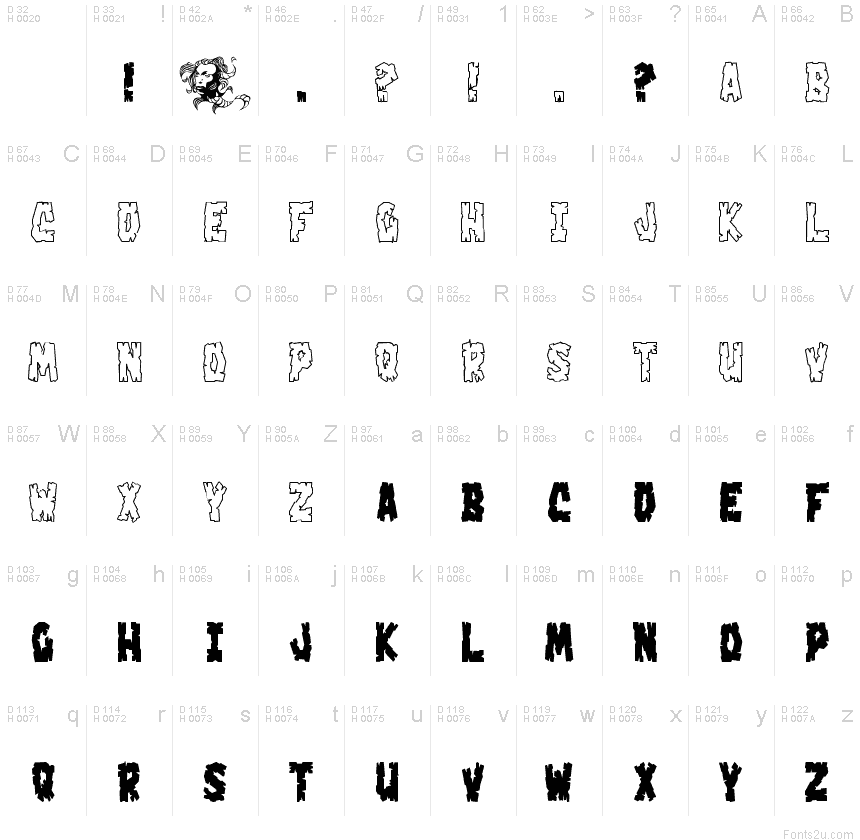
Crakoom!
Crakoom! font by JMEverett is a free distorted display font with the loud, splintered punch of a comic-book sound effect. Its chunky shapes look hacked out of black paper, full of jagged bites and uneven rhythm, so even a short word lands with noise, impact, and a little chaos.
Using Crakoom! works beautifully for comic covers, arcade game titles, Halloween flyers, band posters, skateboard graphics, zines, and punchy YouTube thumbnails. This free font wants room to shout-set it large, and pair it with a clean sans serif so the rough edges stay sharp and readable.